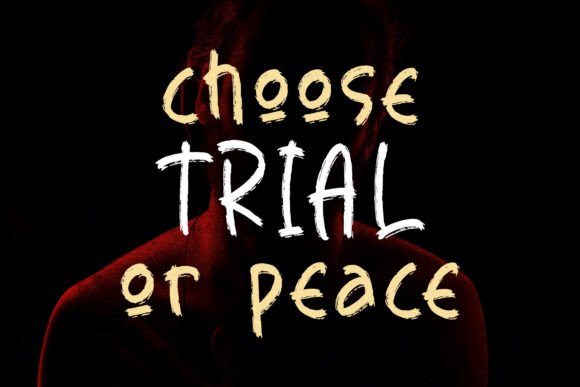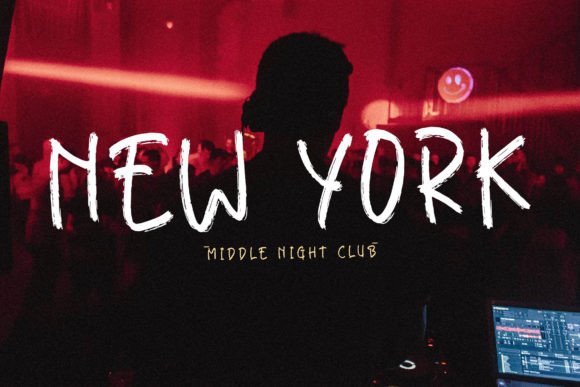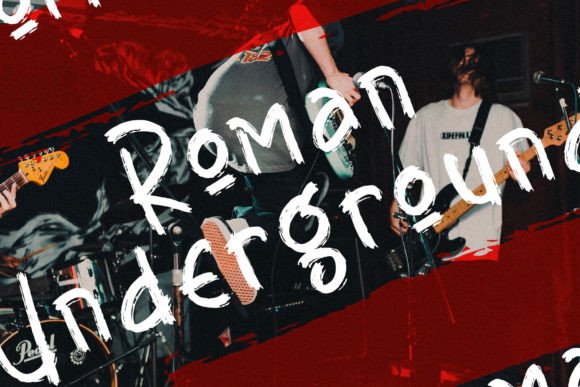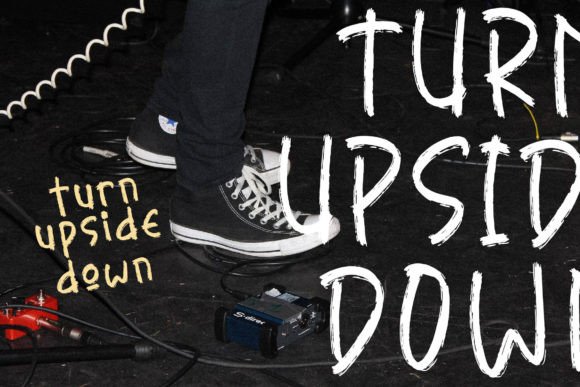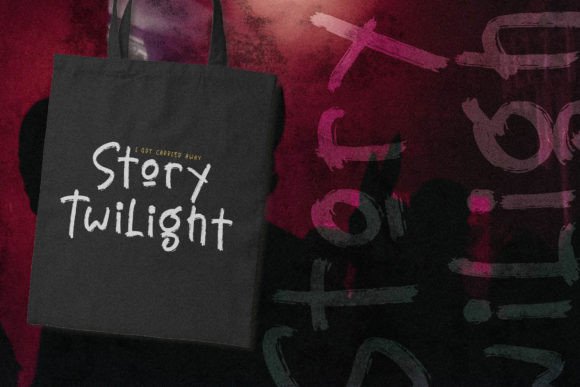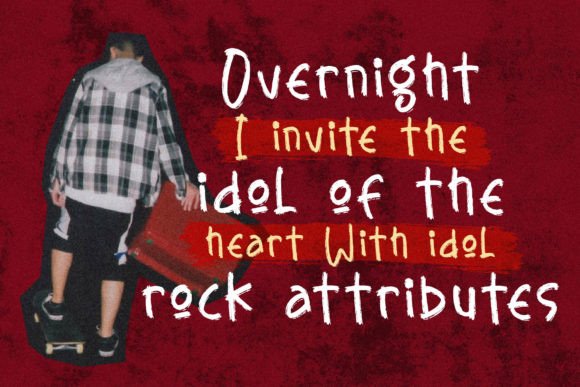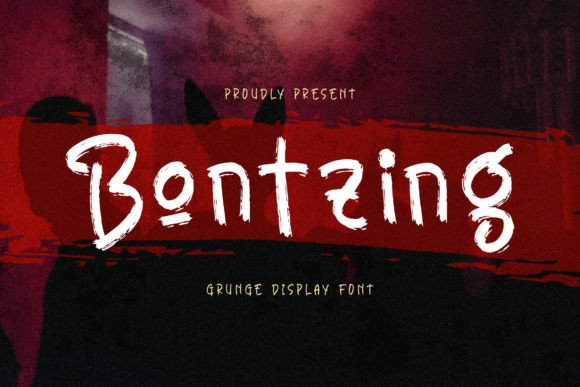
Bontzing Font: The Ultimate Grunge Display Font for Creative Projects
Are you a designer or crafter looking for a unique and eye-catching font to elevate your projects? Look no further than Bontzing, a grunge display font that is perfect for a wide range of creative endeavors. In this article, we’ll explore the features and benefits of Bontzing, and show you how it can be used to add a touch of rough, rugged charm to your designs.
What is Bontzing Font?
Bontzing is a grunge display font that is designed to add a touch of edginess and sophistication to your projects. With its rough, distressed texture and bold, chunky letters, Bontzing is the perfect choice for designers and crafters who want to create unique and eye-catching designs. Whether you’re working on a logo, branding project, or homeware design, Bontzing is sure to make a statement.
Features of Bontzing Font
So, what makes Bontzing such a great choice for designers and crafters? Here are just a few of the key features that set it apart:
- Rough, distressed texture: Bontzing’s rough, distressed texture gives it a unique, handmade feel that is perfect for adding a touch of character to your designs.
- Bold, chunky letters: Bontzing’s bold, chunky letters are perfect for creating eye-catching designs that demand attention.
- High-quality design: Bontzing is designed to the highest standards, with clean lines, precise curves, and a level of detail that is unmatched by many other grunge fonts.
- Versatile: Bontzing is a versatile font that can be used for a wide range of projects, from logos and branding to homeware designs and product packaging.
Uses for Bontzing Font
So, what can you use Bontzing for? The answer is almost anything! Here are just a few ideas to get you started:
- Logos and branding projects: Bontzing is perfect for creating unique and memorable logos and branding materials that will help your business stand out.
- Homeware designs: Add a touch of personality to your homeware designs with Bontzing’s bold, chunky letters.
- Product packaging: Make your product packaging stand out with Bontzing’s eye-catching design.
- Mugs and quotes: Bontzing is perfect for creating fun and quirky mugs and quotes that make great gifts or promotional items.
- Posters and shopping bags: Use Bontzing to create eye-catching posters and shopping bags that will grab attention and make a lasting impression.
- T-shirts and book covers: Bontzing is a great choice for designing t-shirts and book covers that need to stand out from the crowd.
- Name cards and invitation cards: Add a touch of elegance and sophistication to your name cards and invitation cards with Bontzing.
- Greeting cards and labels: Use Bontzing to create unique and eye-catching greeting cards and labels that will make your correspondence stand out.
- Photography and watermarks: Bontzing is perfect for adding a touch of personality to your photography and watermarks.
Why Choose Bontzing Font?
So, why should you choose Bontzing over other grunge fonts? Here are just a few reasons:
- Unique design: Bontzing’s unique design sets it apart from other grunge fonts, making it perfect for designers and crafters who want to create something truly original.
- High-quality: Bontzing is designed to the highest standards, ensuring that it will look great in any project.
- Versatile: Bontzing can be used for a wide range of projects, making it a great choice for designers and crafters who need a font that can adapt to different uses.
- Easily readable: Despite its grunge texture, Bontzing is easily readable, making it perfect for use in a wide range of projects.
In conclusion, Bontzing is a fantastic grunge display font that is perfect for designers and crafters who want to add a touch of rough, rugged charm to their projects. With its unique design, high-quality construction, and versatility, Bontzing is a great choice for anyone looking for a font that can help them stand out from the crowd. Whether you’re working on a logo, branding project, or homeware design, Bontzing is sure to make a statement.